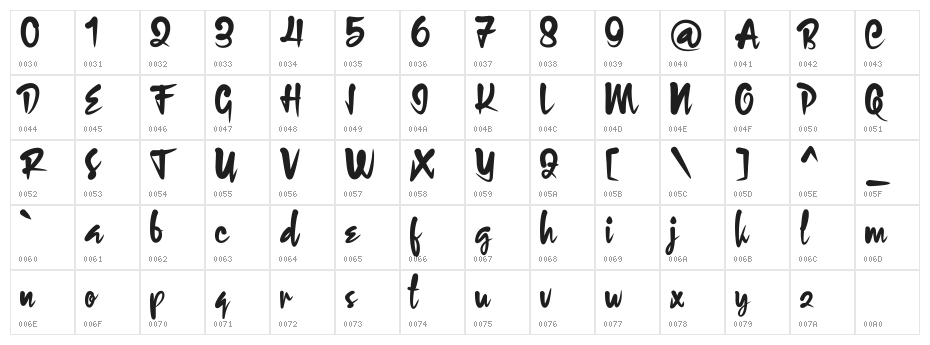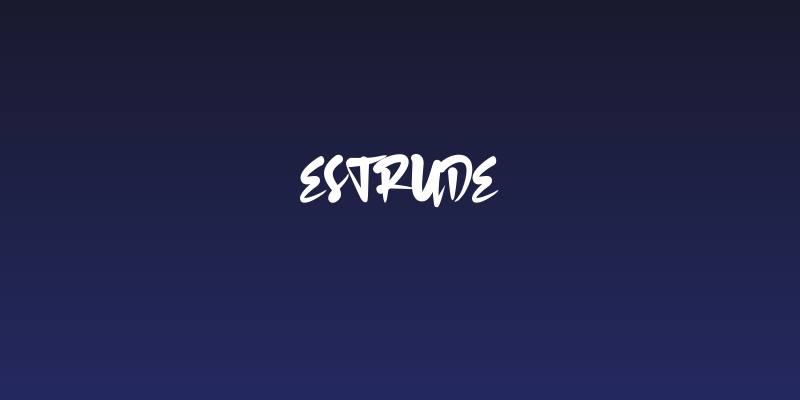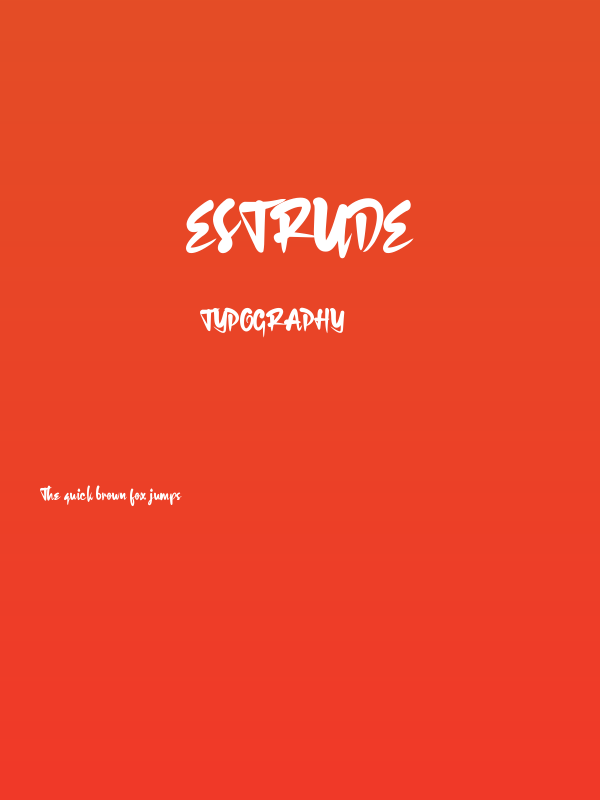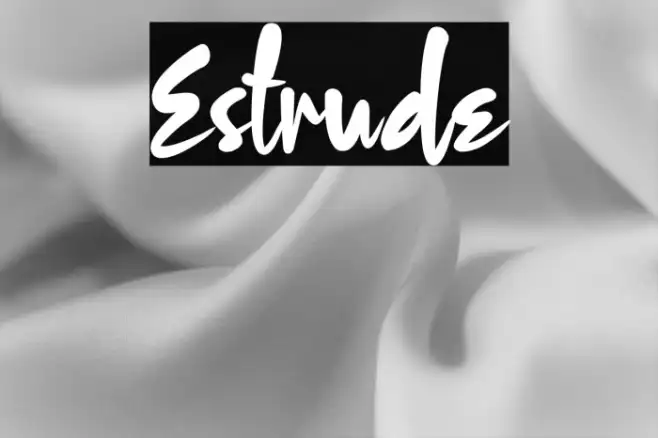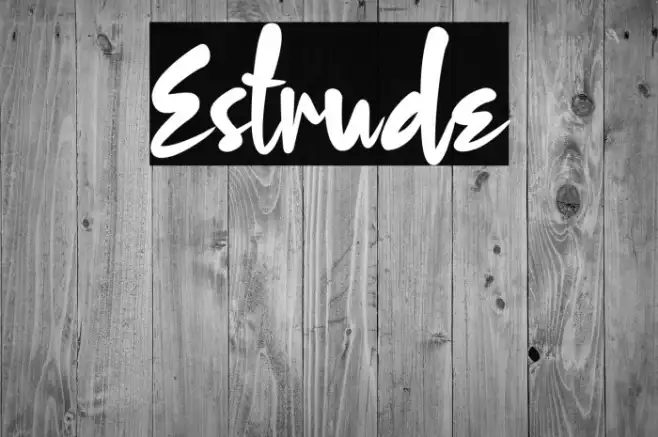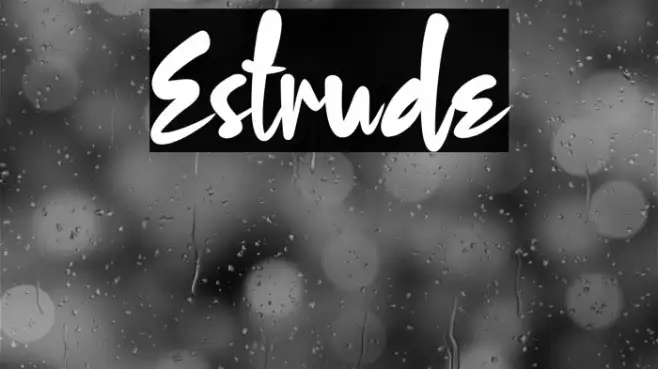
Estrude Font
Estrude Description
This font features a bold and expressive script style with a dynamic flow, characterized by thick strokes and smooth curves. The uppercase letters exhibit a strong presence with their wide and rounded forms, while the lowercase letters maintain a consistent rhythm and fluidity. The numerals are equally bold, ensuring readability and impact. The special characters are designed to complement the overall aesthetic, adding a playful touch. This font's energetic and lively appearance makes it suitable for creative and eye-catching designs.
| Proposed Projects | Ideal for branding, posters, invitations, and any project that requires a lively and engaging script style. |